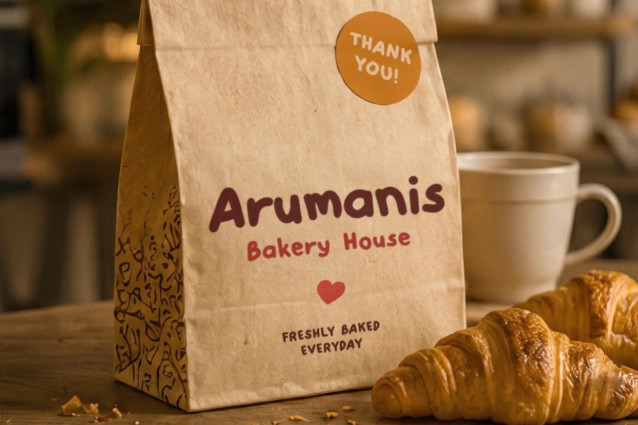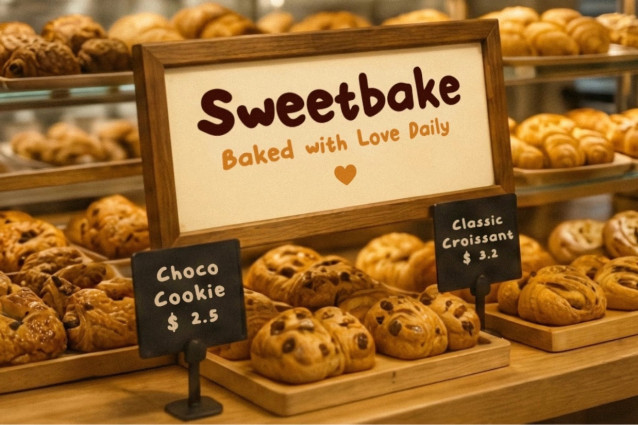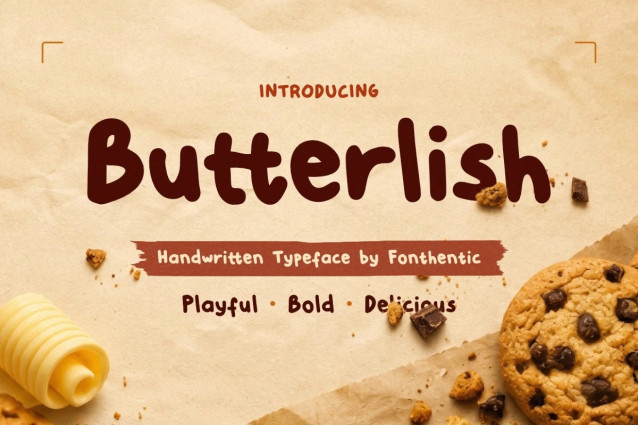
Butterlish Demo Font
Butterlish is a cute food branding font designed with thick monoline strokes, rounded terminals, and soft organic contours that create an instantly friendly and approachable appearance. The letterforms feature generous counters, balanced proportions, and slightly irregular hand-crafted construction that avoids mechanical rigidity. The font achieves strong readability even at larger display sizes thanks to its open shapes and consistent stroke weight.
Its bakery-inspired character makes Butterlish particularly effective for brands that want to communicate comfort, sweetness, and family-friendly appeal. Perfect for bakery packaging, cookie brands, snack products, café identities, food truck graphics, restaurant signage, children’s food products, and promotional merchandise. The rounded construction helps products feel more inviting on shelves while creating memorable brand recognition across packaging and advertising materials.